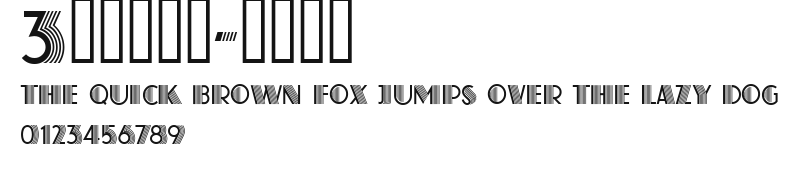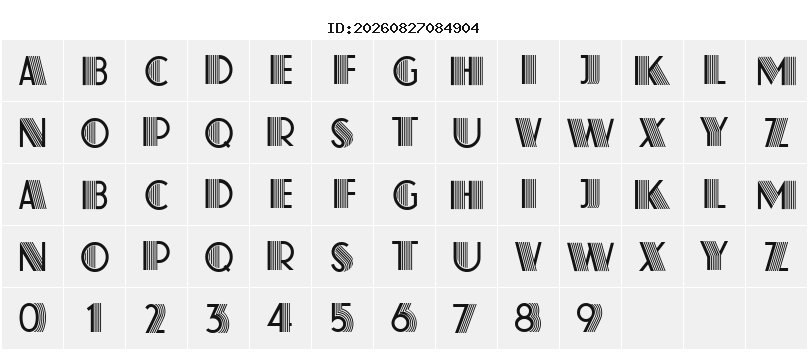
• Font Name: 3代呼吸英文-粗细线条
• Font ID: Macromedia Fontographer 4.1.3 Farouk
• Full Font Name: 3代呼吸英文-粗细线条
• Version: Macromedia Fontographer 4.1.3 3/26/01
• PostScript Name: Farouk
• Character Count: 187
• Copyright: Farouk computer font v1.0 ?2001 Harold Lohner ? HLohner@aol.com ? http://members.aol.com/fontner Based on an analog font of the same name, as illustrated in Paul E. Kennedy's "Modern Display Alphabets"
About 3代呼吸英文-粗细线条.ttf
3代呼吸英文-粗细线条.ttf is a modern, elegant sans-serif font designed for ultimate readability and visual harmony. Perfect for branding, headlines, web design, and print materials.